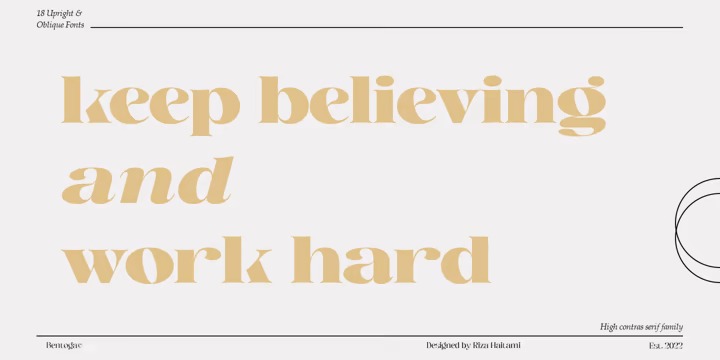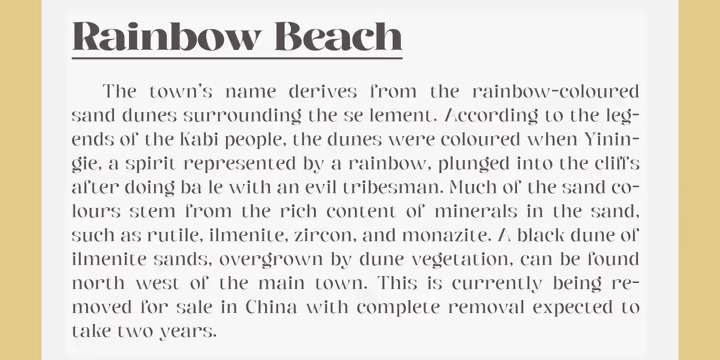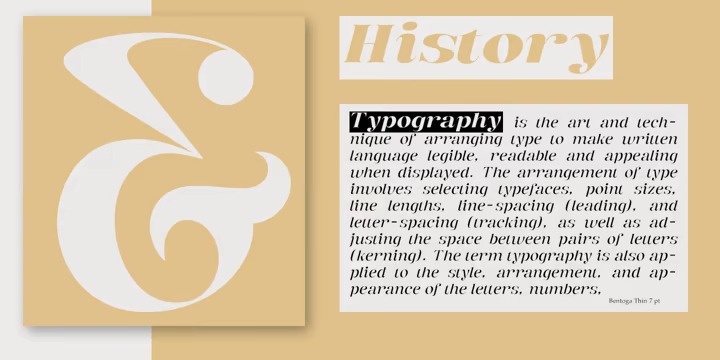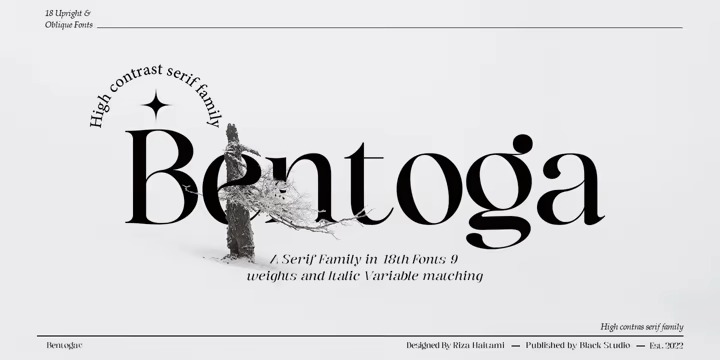
Bentoga Font
Bentoga Serif Font
This font is a stylish display and bold serif with high contrast, making it a versatile and elegant typeface. Its striking contrasts and subtle details, together with its sumptuous strokes and voluptuous curves, create a beautiful and powerful statement for any typographic composition, blending glamor with a contemporary aesthetic.
Bentoga really helps you create unlimited variations for your creative needs in making your project titles: such as Books, fashion, magazines, logos, branding, photography, invitations, wedding invitations, quotes, blog headers, posters, advertisements, postcards, books, websites, etc.